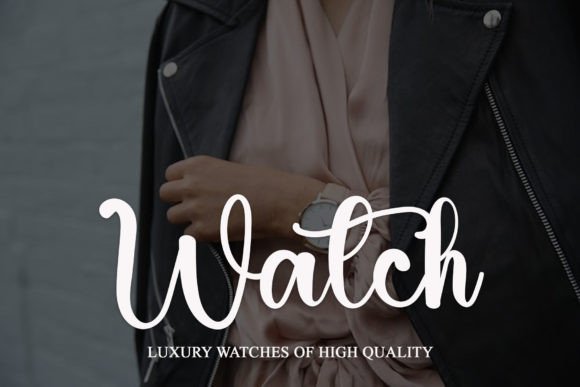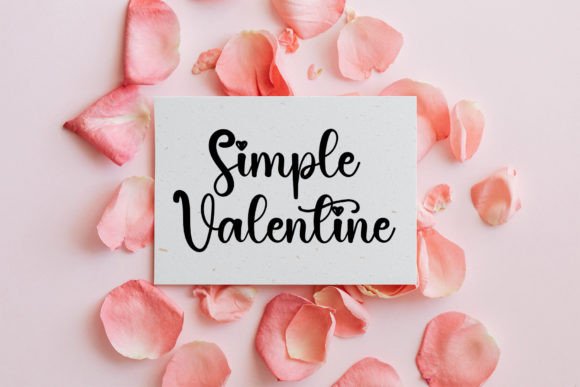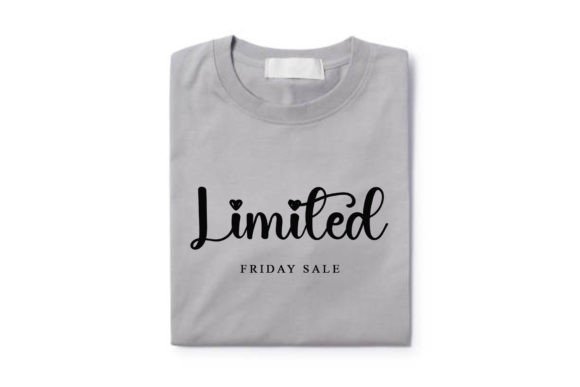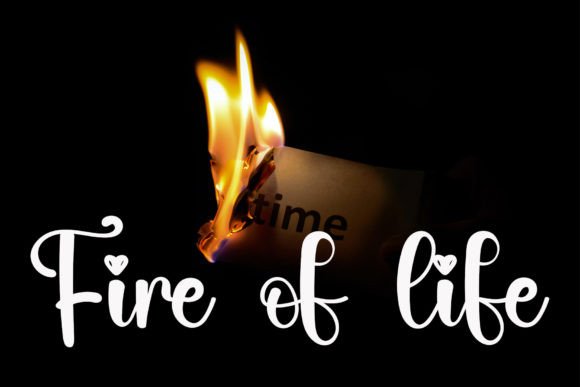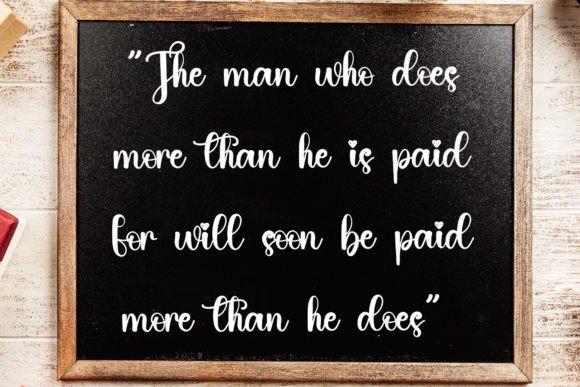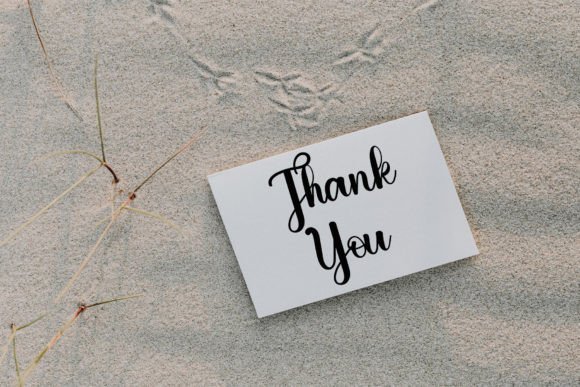
Blossoming Creativity with Better Pumpkin Font
As a designer, there’s nothing quite like the thrill of stumbling upon a font that sparks a new idea. It’s that magical moment when the words on your screen transform into a world of possibilities, and you can’t wait to see your vision come to life. For many, that moment arrives when they discover the Better Pumpkin Font – a masterfully designed handwritten font that effortlessly blends classic calligraphy with a modern twist.
Whether you’re working on a wedding invitation, a fall-themed marketing campaign, or a cozy home decor project, the Better Pumpkin Font is sure to elevate your designs to new heights. Its unique character and style make it a valuable addition to any designer’s toolkit, offering a level of sophistication and charm that’s hard to find elsewhere.
With its versatility and timeless appeal, the Better Pumpkin Font is an essential choice for any designer looking to bring their projects to life with a touch of elegance and whimsy.
Better Pumpkin Font Key Features
- Unique Characteristics: The Better Pumpkin Font features a unique blend of modern and traditional elements, with a warm, inviting tone that evokes the feeling of fall and harvest seasons.
Better Pumpkin Font Review
I recently had the chance to work with the Better Pumpkin Font, and I must say, it’s a mixed bag. ✨ Here are some of the things that work well:
- Unique style: The font has a distinctive, hand-painted feel that sets it apart from more generic fonts.
- Expressive: The font is perfect for projects that need a bit of whimsy and personality.
- Good legibility: While it’s not a straightforward font, the Better Pumpkin Font is still easy to read, even at smaller sizes.
- Complexity: The font’s unique style can make it difficult to work with, especially for designers who prefer simpler fonts.
- Limited character set: The font’s character set is not as comprehensive as some other fonts, which can be a problem for projects that require a wide range of characters.
- Size limitations: The font can become difficult to read at very small sizes, which may limit its use in certain applications.
Overall, I think the Better Pumpkin Font is a great choice for projects that need a bit of flair and personality. However, it may not be the best choice for every project, and designers should be aware of its limitations before using it.
For best results, use “Better Pumpkin Font” for headings and titles to add a playful touch to your design.
For best results, use “Better Pumpkin Font” for creative projects that require a unique and playful touch.
For best results, use “Better Pumpkin Font” for presentations and documents that require a creative and eye-catching touch.
Some common use cases for “Better Pumpkin Font” include:
- Designing invitations and party materials.
- Creating social media graphics and posts.
- Developing branding and marketing materials.